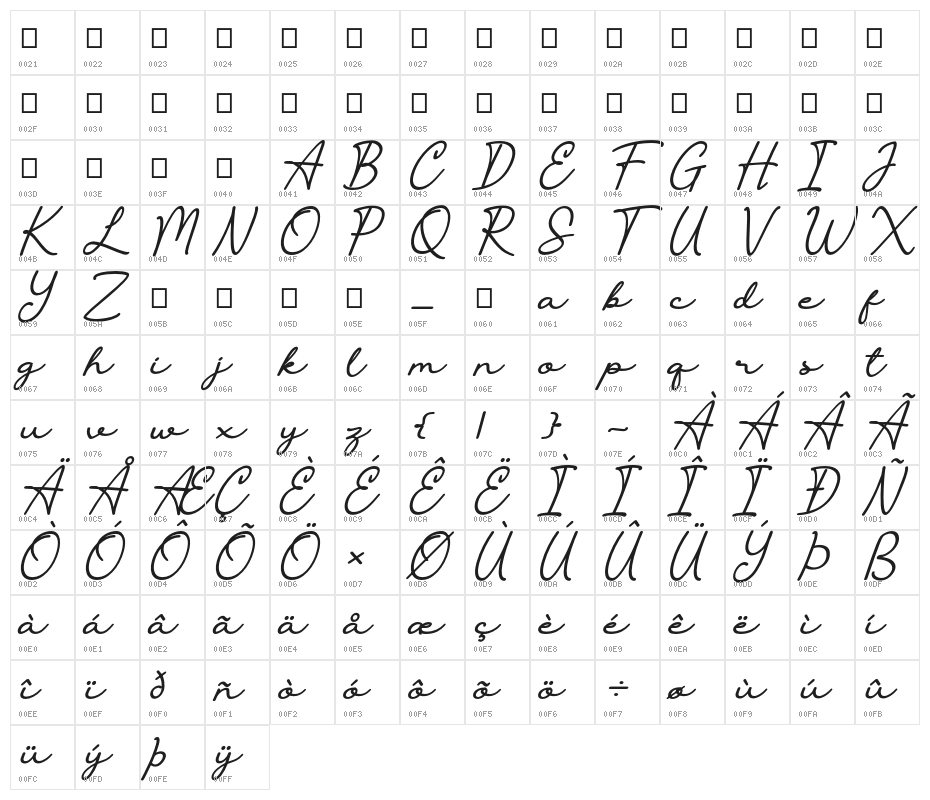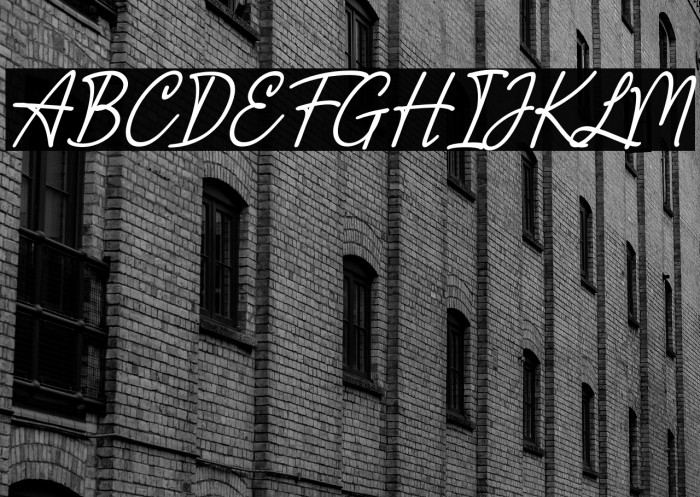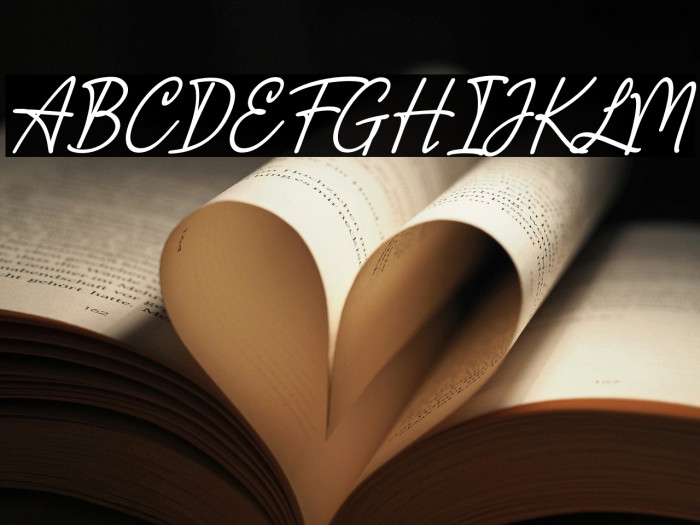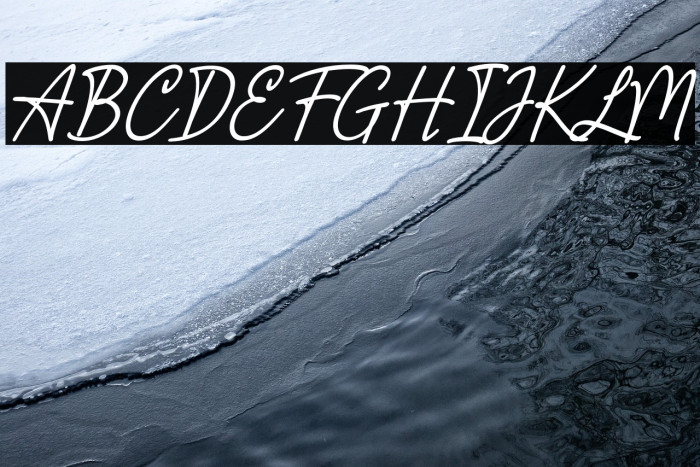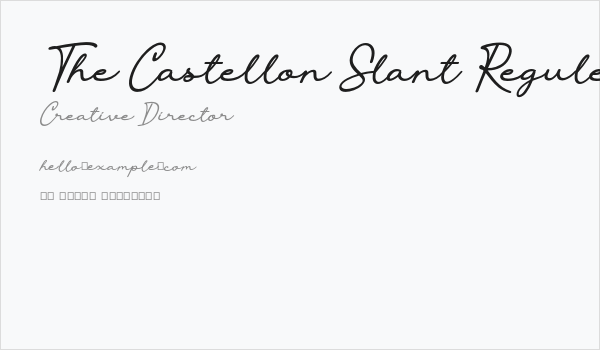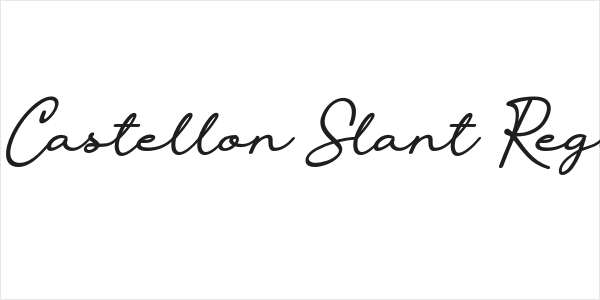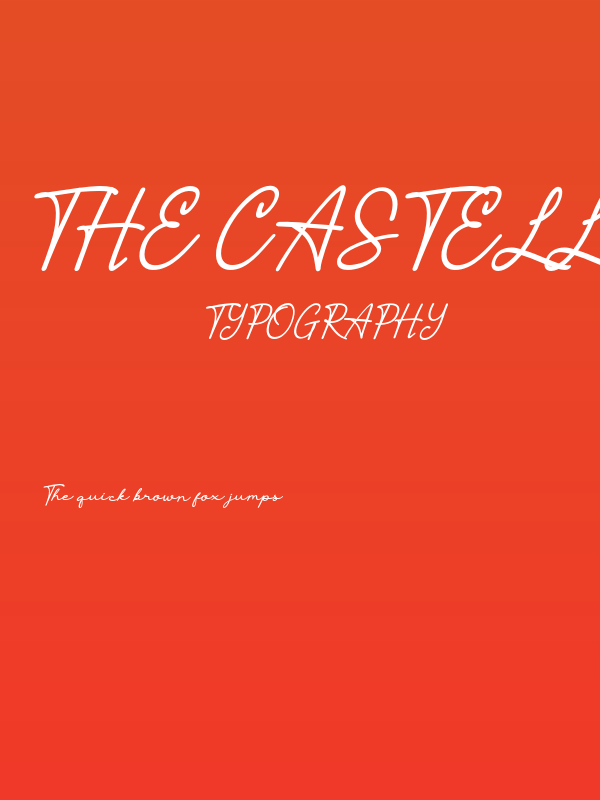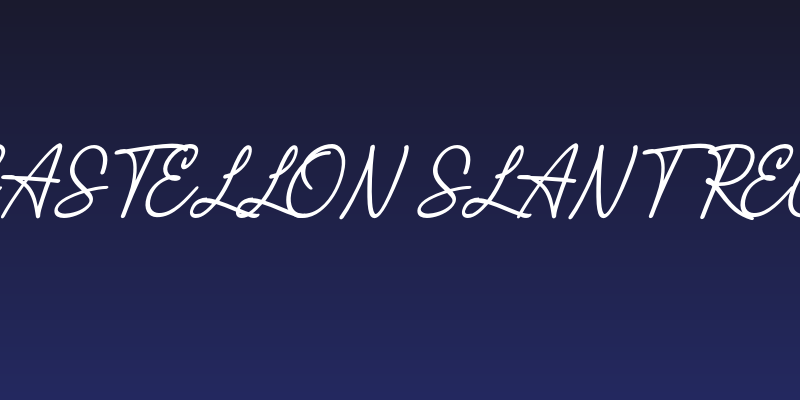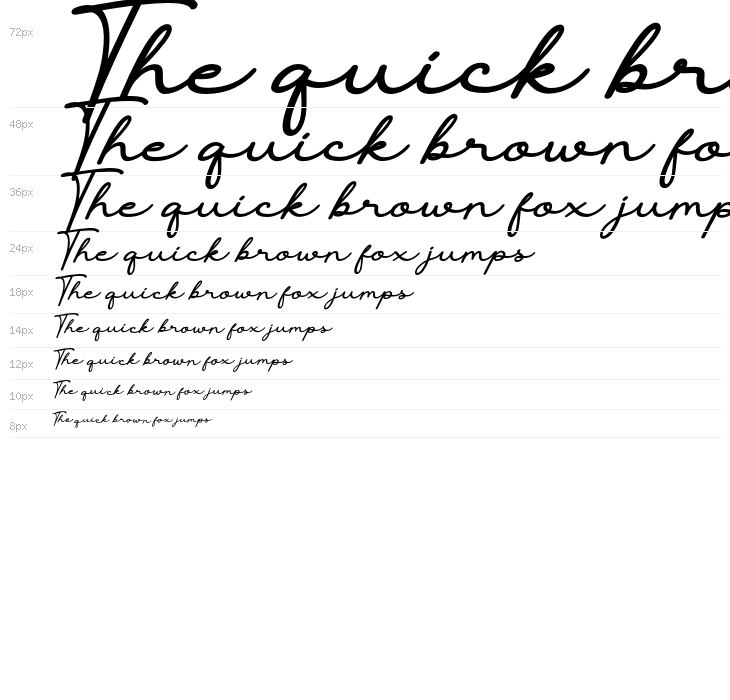
The Castellon Slant Reguler Font
The Castellon Slant Reguler Description
This elegant script font features a smooth, flowing style with a slight slant, giving it a sense of motion and grace. The uppercase letters are tall and slender, with delicate curves and flourishes that add a touch of sophistication. The lowercase letters maintain a consistent flow, with rounded forms and gentle connections between characters. The overall appearance is both refined and approachable, making it suitable for a variety of applications. The font's design emphasizes readability while maintaining an artistic flair, making it ideal for projects that require a personal touch.
| Use Case | Logos, Invitations, Personal branding |
| Proposed Projects | Wedding invitations, greeting cards, personal branding, and elegant packaging. |